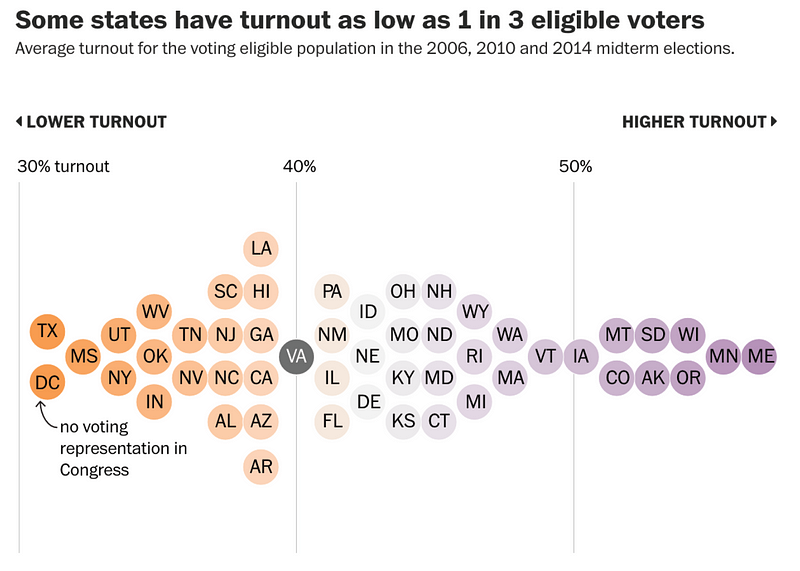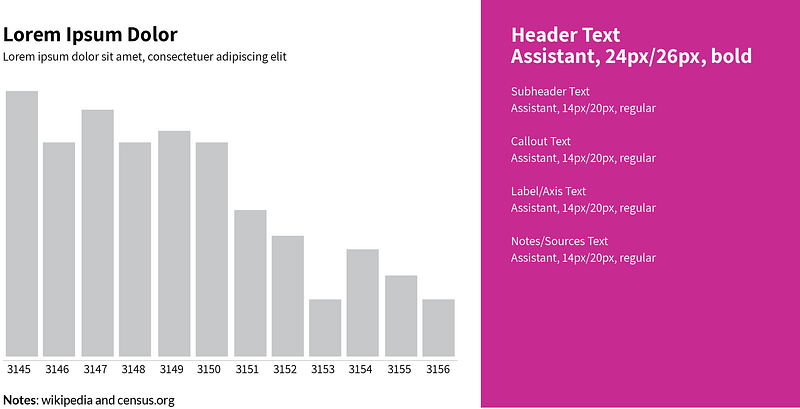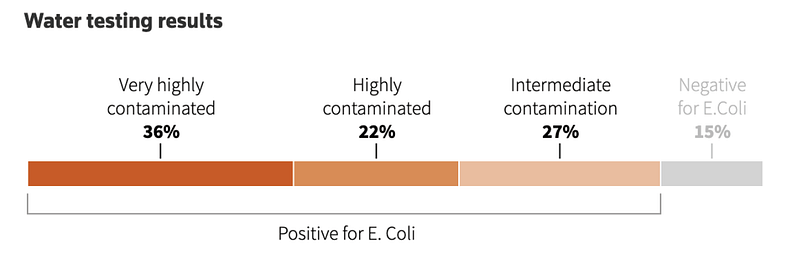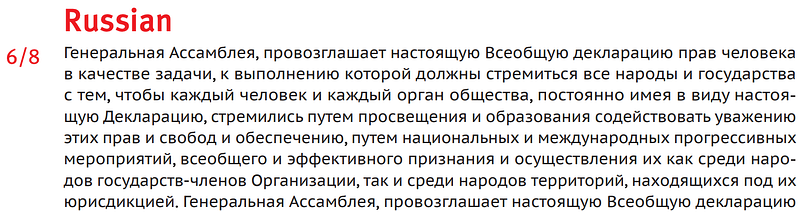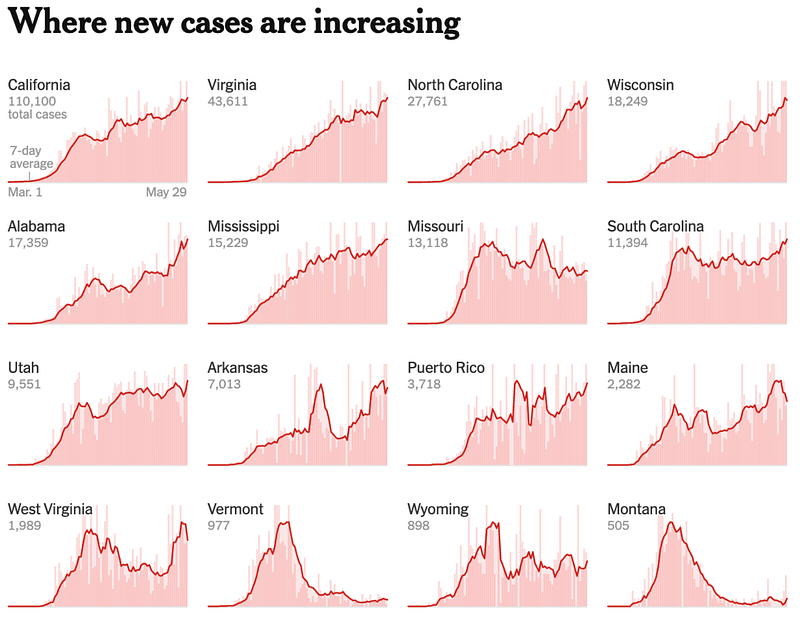
Choosing Fonts for Your Data Visualization
The purpose of data visualization is to provide a layout that relays lots of information quickly. Good visualizations help the user understand complicated data without allowing the design to get in the way. Any text accompanying the graphics should be easy to read to the point that it almost disappears.
In this article, I will be explaining how to pick a highly readable and aesthetically pleasing typeface for your project. I will focus primarily on small text, that is, text in a data visualization that is meant to explain the layout, including labels, callouts, and sources. In order to serve a wider audience, I will only recommend free Google fonts, though there are many good paid options.
Highly Readable Fonts
Highly readable fonts take less brainpower to interpret. Visualizations with good typography have a consistent rhythm. They look like a cohesive unit. Good typography doesn’t grandstand — it explains the content without getting in the way of the user’s experience. Copy should be minimal, parred down to the essentials for comprehension of the graphical elements.
To understand how type is “highly readable” at small sizes, let’s look at a few elements of type.
X-height
X-height is the height of the body of the lower case letters minus any ascenders or descenders. Because lowercase letters sometimes have different heights, this height is measured using the letter “x”.
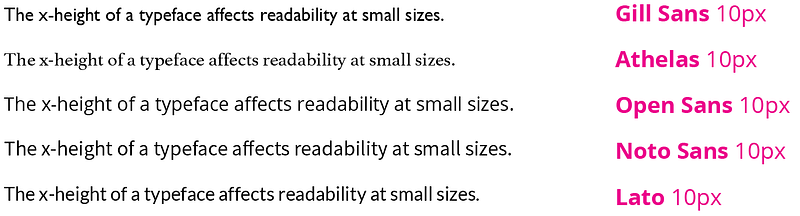
The x-height directly affects how readable fonts are at small sizes. For instance, take a look at the graphic above. All of these fonts are 10px. Which typeface do you find most readable? Gill Sans and Athelas have smaller x-heights, making the text more difficult to read. Open Sans, Noto Sans, and Lato have larger x-heights, lending to easier readability at small sizes. When choosing a font for data visualization, opt for a typeface with a large x-height.
Note also, Lato has a good x-height, but shorter line-length. If your visualization has an x-axis with limited space for ticks, you may want to consider a more condensed typeface like Lato.
Counter
The counter is the empty space in letters such as “p” and “o”.
As the text above says, the shape of the counter affects readability at small sizes. The eyes should roll easily over the letterforms. Your viewer should not have to spend time figuring out if the letter is an o or an e. Fonts with distorted counters render poorly in small sizes. Whimsical fonts such as Marker Felt should be avoided. Note how difficult it is to read dense fonts like League Gothic and Futura Condensed at small sizes. This is because the counters are elongated when the font is squished. When choosing a font for your visualization, look to use a font with a stable, open counter.
Serifs
Serifs are the little swooshes or feet around a letter form.
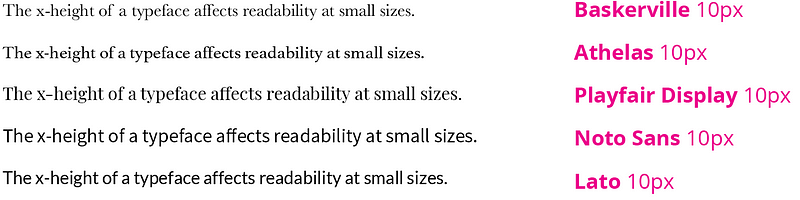
Serifs are often avoided in labeling content because the extra flourishes sometimes muddle the view of the letterform. The first three lines above are serif fonts. Compare those to the last two typefaces which are sans-serif (without serifs). In these examples, the sans-serif words are easier to decipher. While some serif fonts are passable at smaller sizes, if you are unsure, then skip them and opt to use a sans-serif typeface.
Using Numbers
Typeface numeric values are either proportional and tabular.
Proportional numbers are designed to look good when used in the text. Tabular numbers are designed to work with data. Tabular numbers take up the same amount of width per character. If you line the figures up, you will see that they fall into equally spaced columns. Tabular numbers are easier to read in visualizations.
Open Sans is a tabular typeface that centers numbers within the column space. Lato, however, offsets the number in the column space. Why is this important?
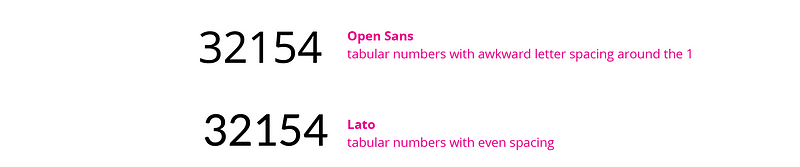
Because that little bit of awkward space requires your brain to work to understand that this is a continuous string of numbers. We can eliminate that work by choosing a typeface with tabular numbers and even spacing.
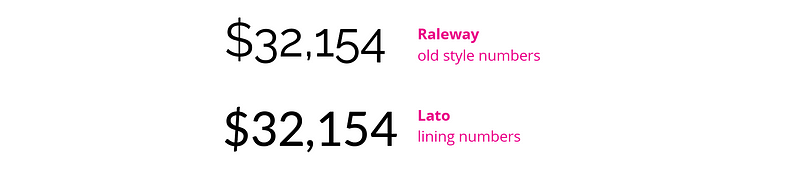
Watch out for old style numbers. Raleway is a beautiful typeface that is commonly used for text and logos, however, it doesn’t work well for labeling data visualizations. That’s because it uses old style numbers instead of lining numbers. Look how the 3, 5, and 4 descend below the baseline. This treatment is not only hard to read in a visualization, but it also looks somewhat jumbled outside of the text.
Typographic Design Systems
A typographic design system, as used below, is a declaration of font sizes, weights, and line heights to be used in a layout. Systems help to ensure visual consistency across a project. Here are five systems to try in your design. The suggested pairings below use open-source Google fonts. Please note that the screenshots are not true-to-life font sizes due to the rendering of images on this page.
Example 1: One font/One size
The “One font/One size” typographic system uses a single typeface with a continuous set size, resulting in a universal visual texture. This subtle approach is good for laying out dashboards or when adding graphs to a business report. Importance can be noted by using a heavier font weight or shades of gray.
Final Thoughts
The fonts and systems above are interchangeable. The following is a list of typefaces mentioned:
These are the fonts mentioned for headers and copy:
Good typography practices start by understanding how the components of letterforms lend themselves to high readability. I hope this approach helps you find a type design system that works for you.